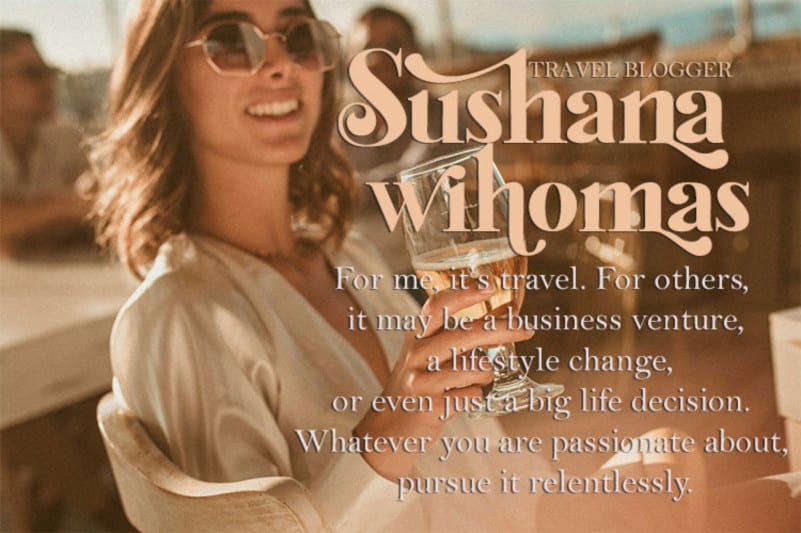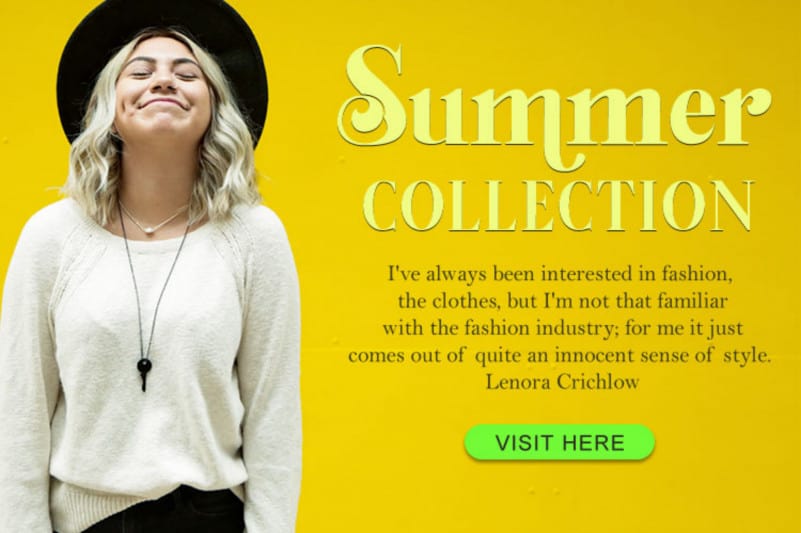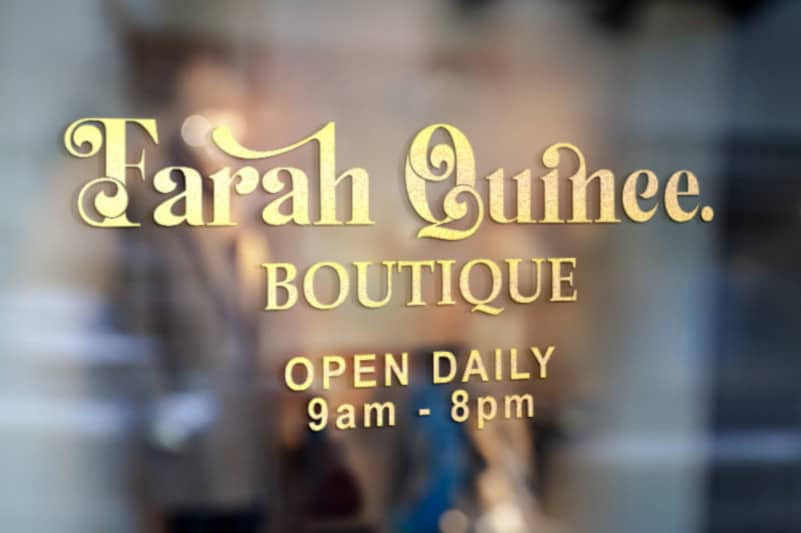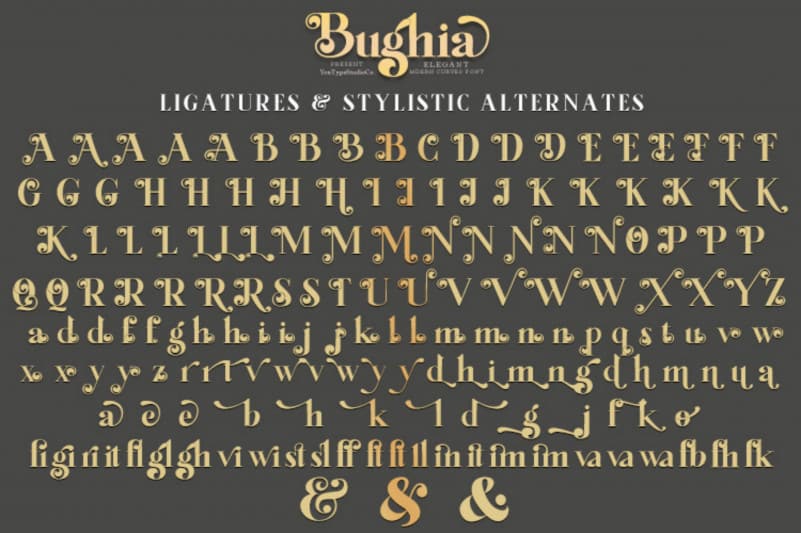
Bughia Serif Font
Bughia Serif Font is an upper and lowercase serif font with balanced curves. This font is inspired by writing from the good old days, but still has a strong modern look. A variety of stylistic alternatives that allow for versatile design options and work perfectly for headlines, logos, posters, packaging, T-shirts, postcards, and more.